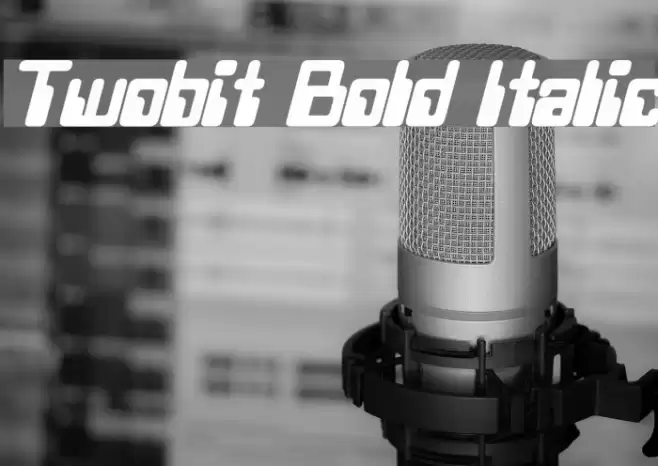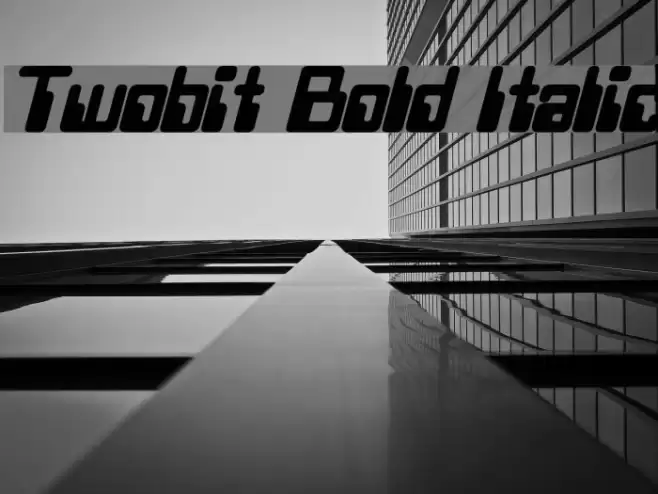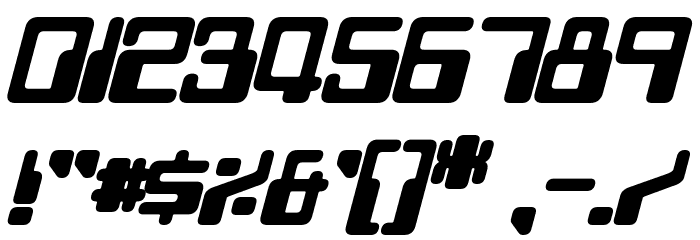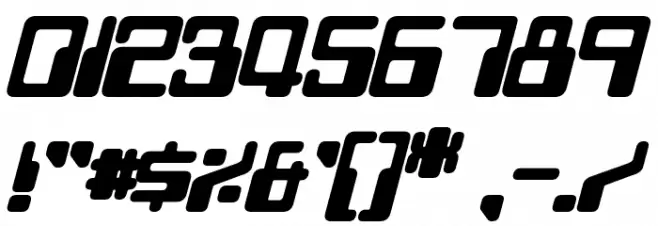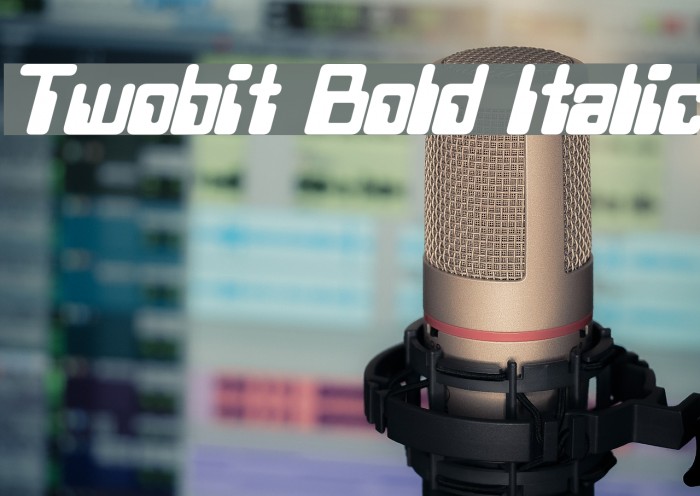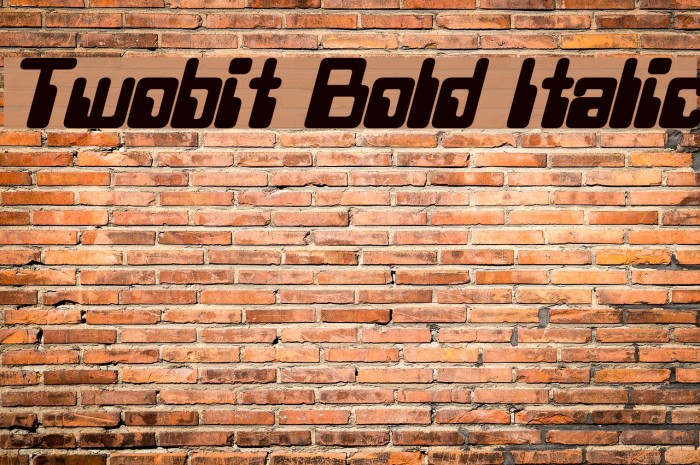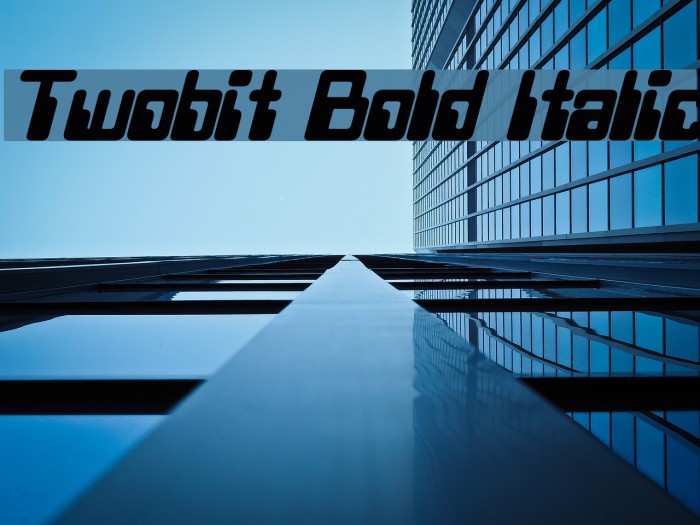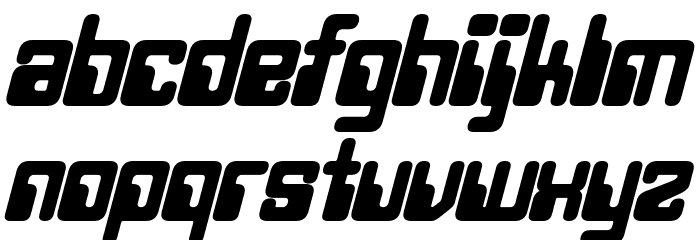
Twobit Bold Italic Font
Twobit Bold Italic Description
This font exhibits a bold and italicized style with a modern and futuristic flair. The characters are designed with a unique geometric structure, featuring rounded corners and a consistent stroke width that gives it a sleek appearance. The uppercase and lowercase letters maintain a cohesive design, while the numerals and special characters complement the overall aesthetic. The font's boldness is evident in its thick strokes, which are consistent across all characters, providing a strong visual impact. The italic slant adds a dynamic and forward-moving energy, making it suitable for projects that require a sense of motion or progress.
A bold, italicized font with a modern, geometric design and consistent stroke width from Uncategorized fonts.
- Proposed Projects: Ideal for technology branding, futuristic posters, video game titles, and dynamic logo designs.
- Overall Style: Modern, Futuristic